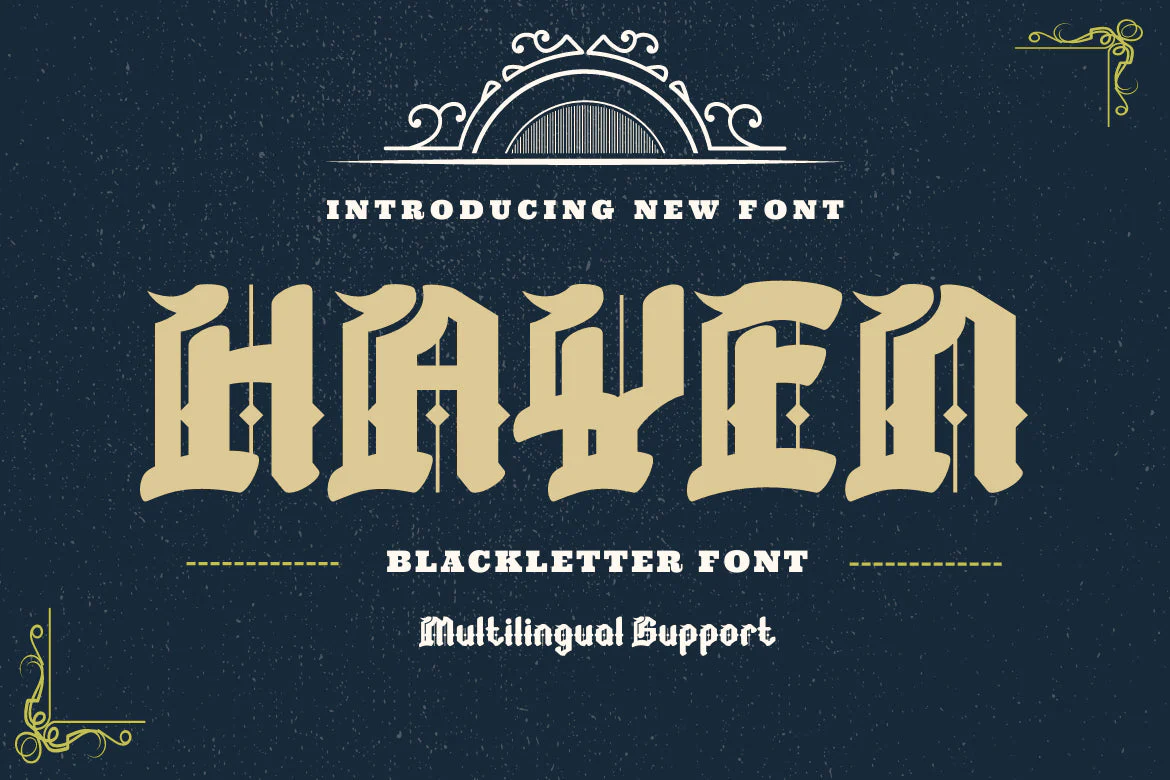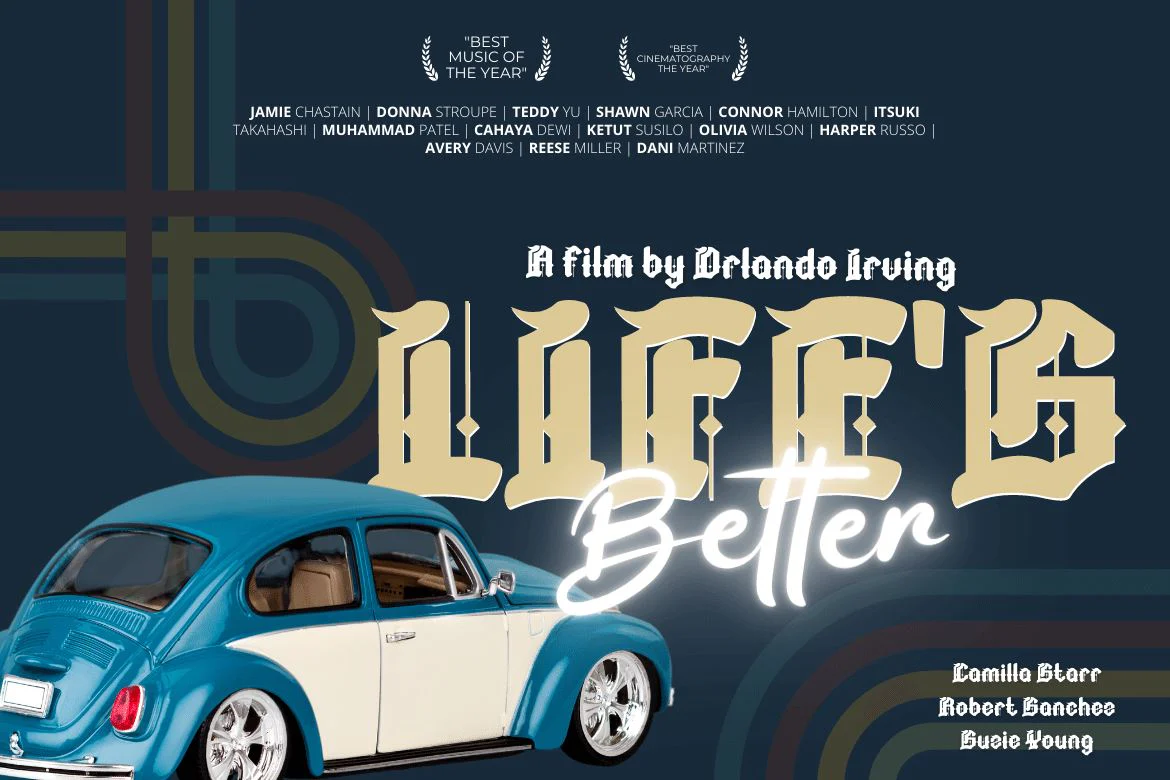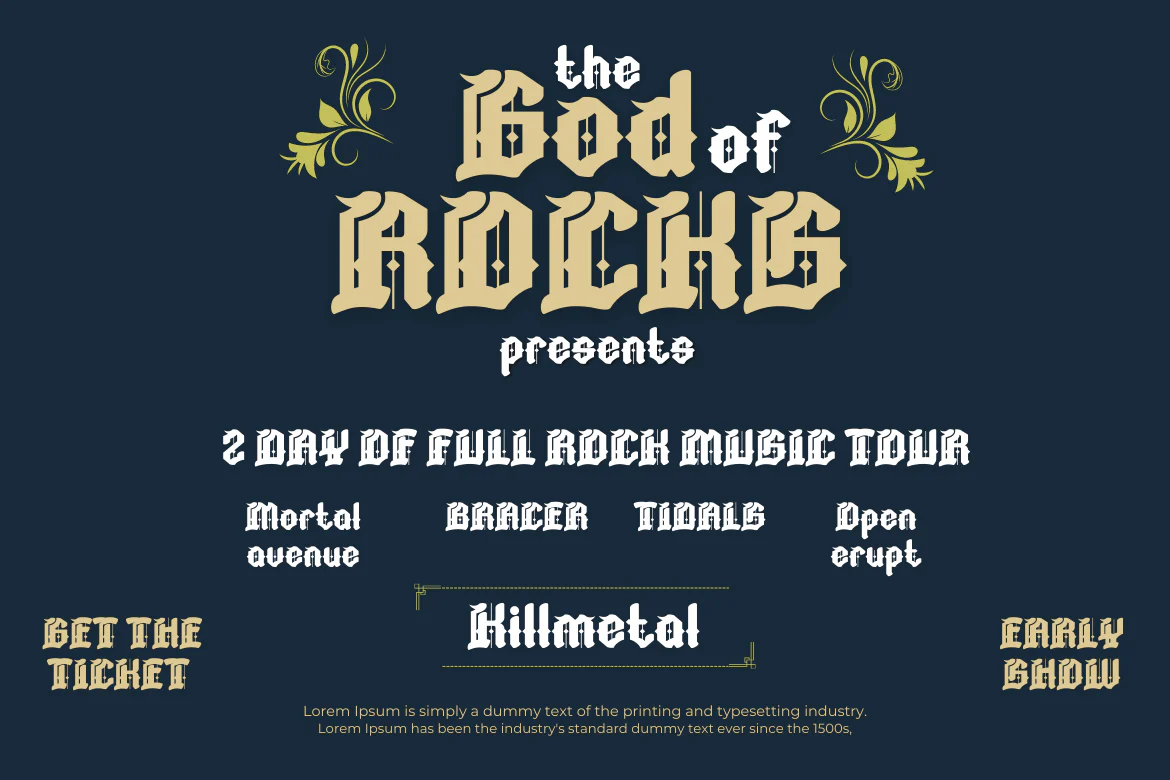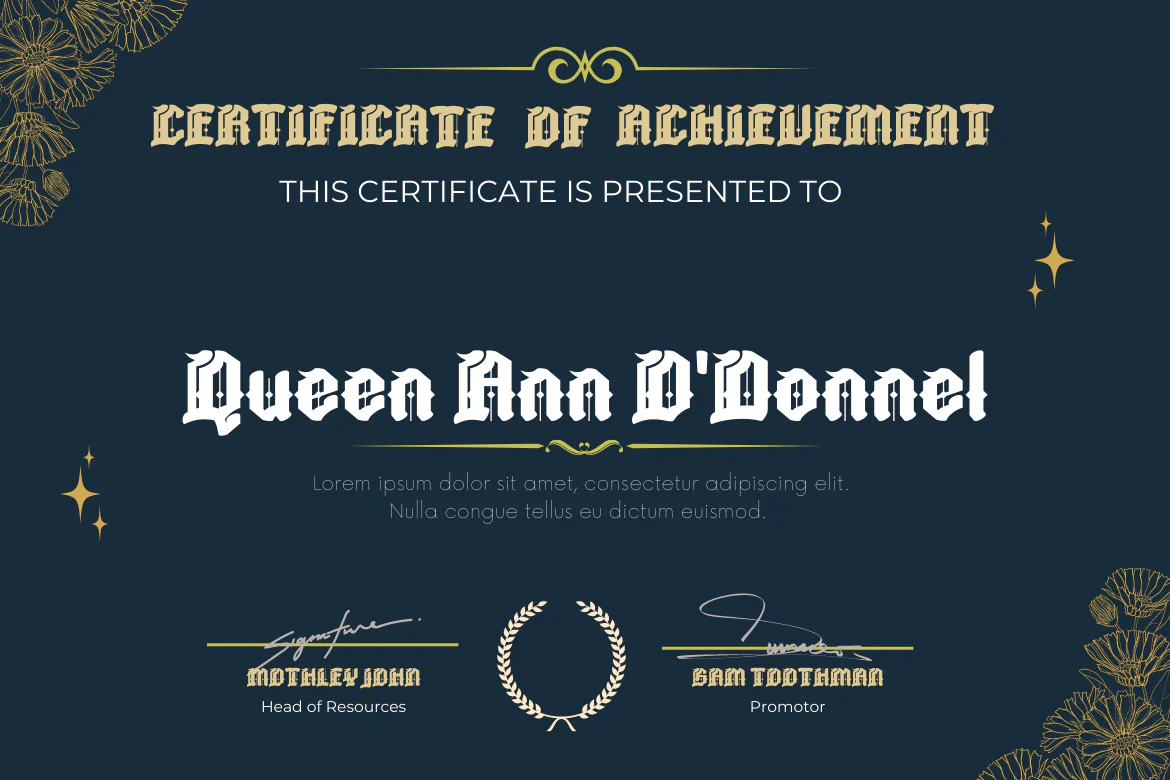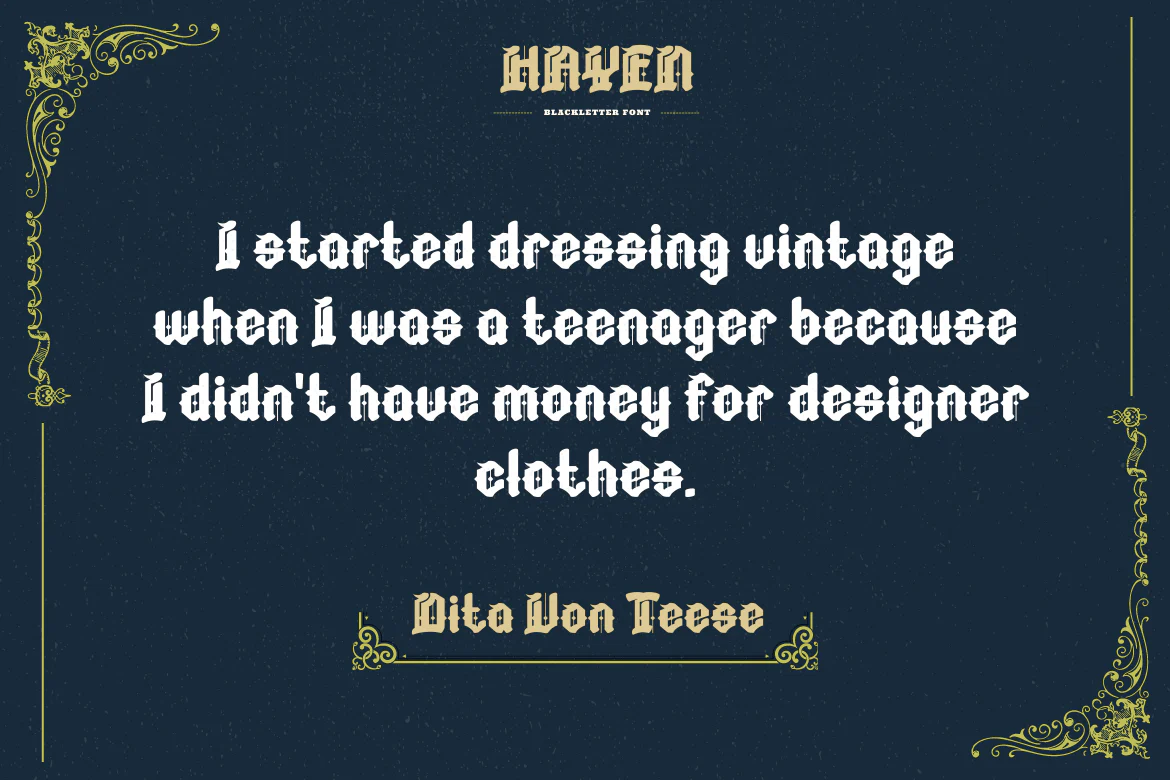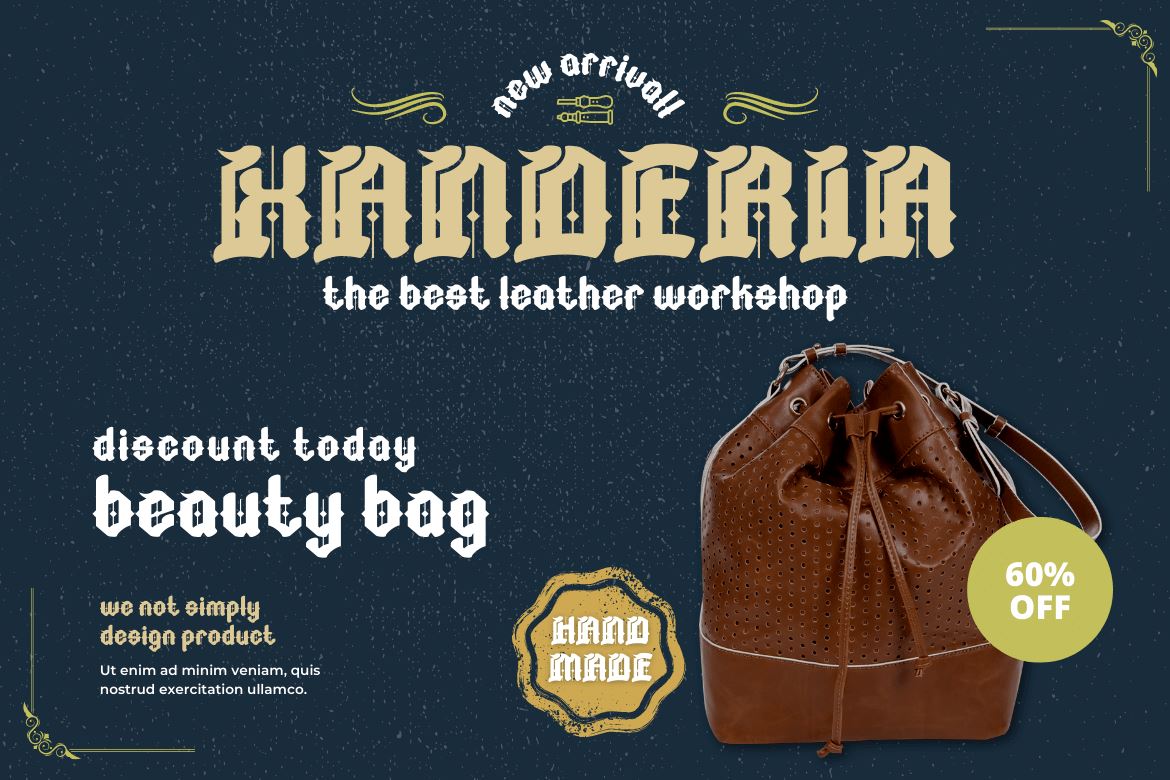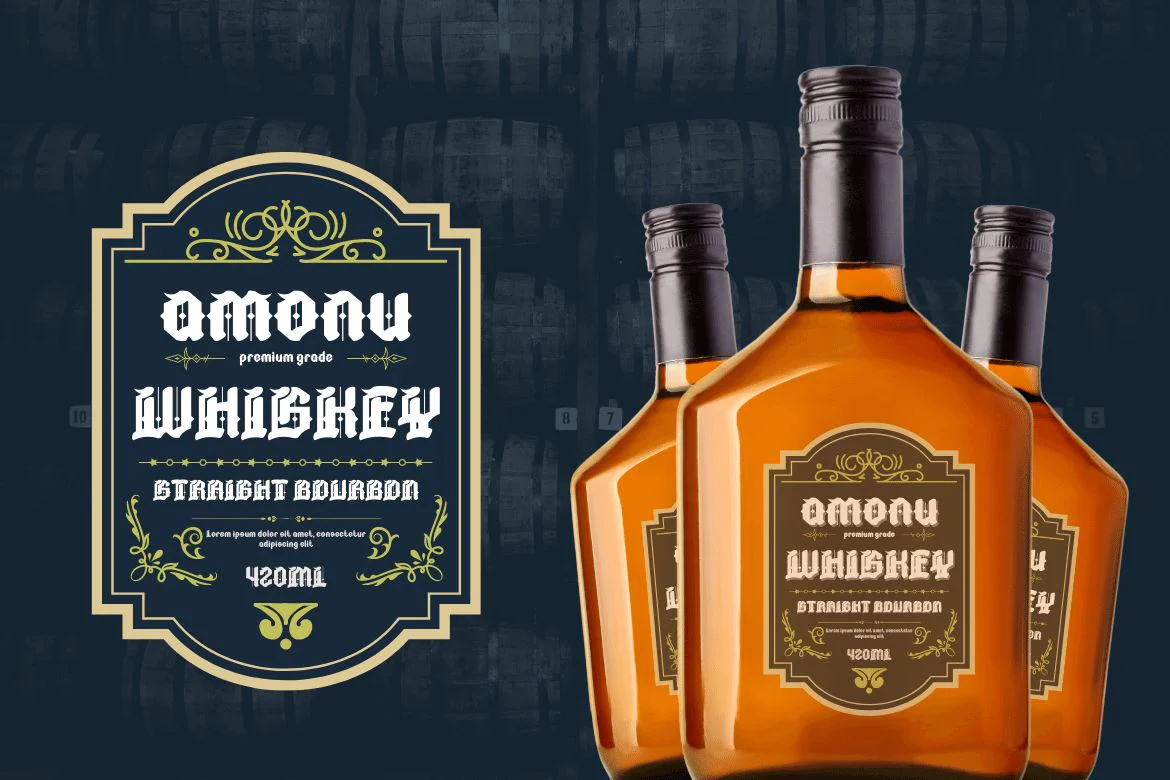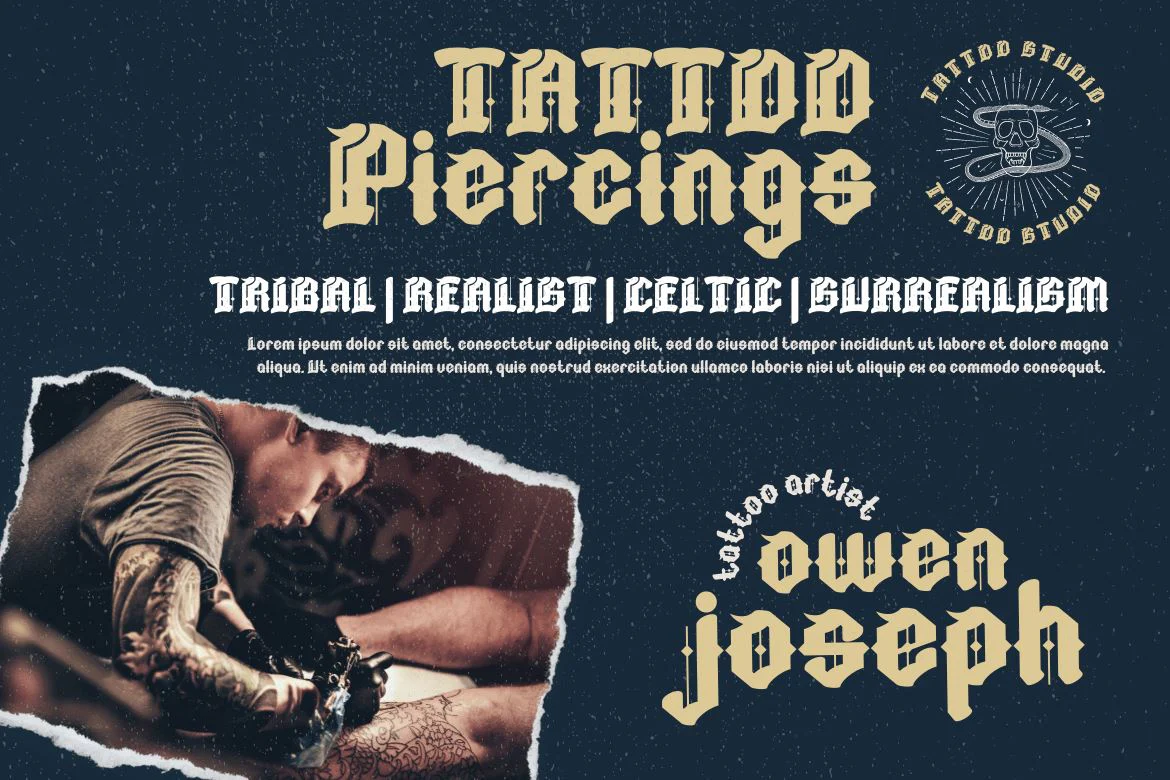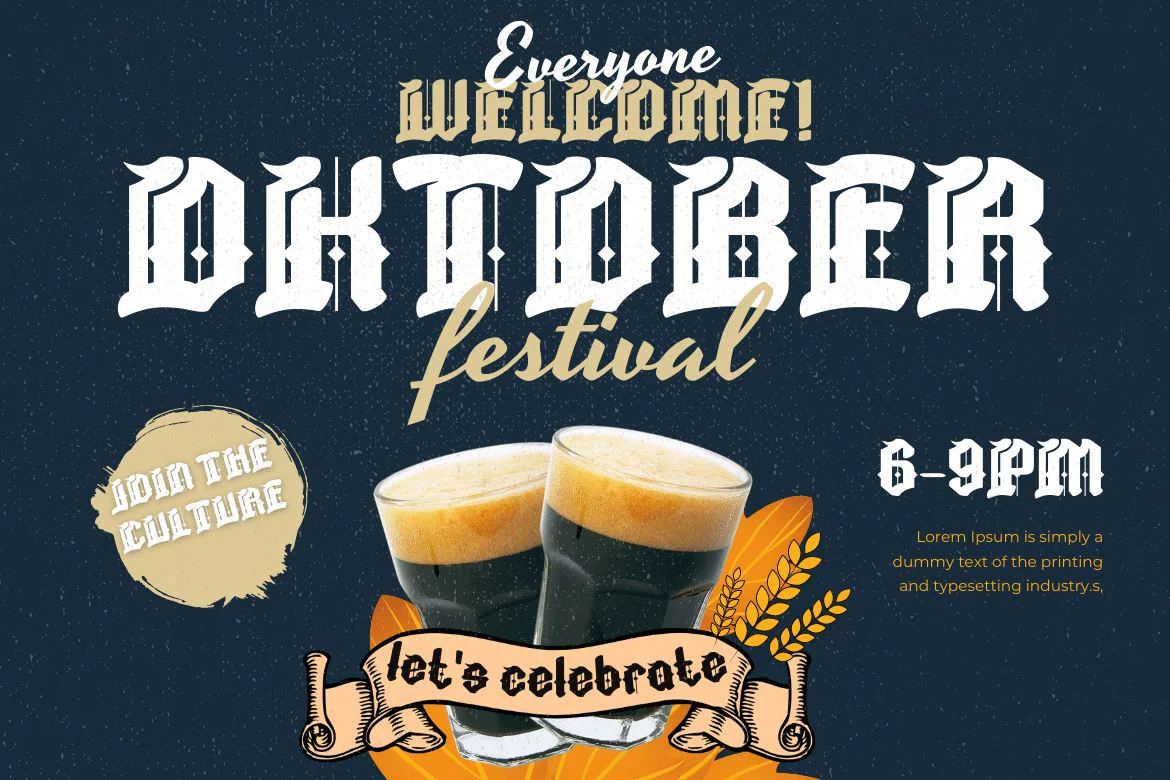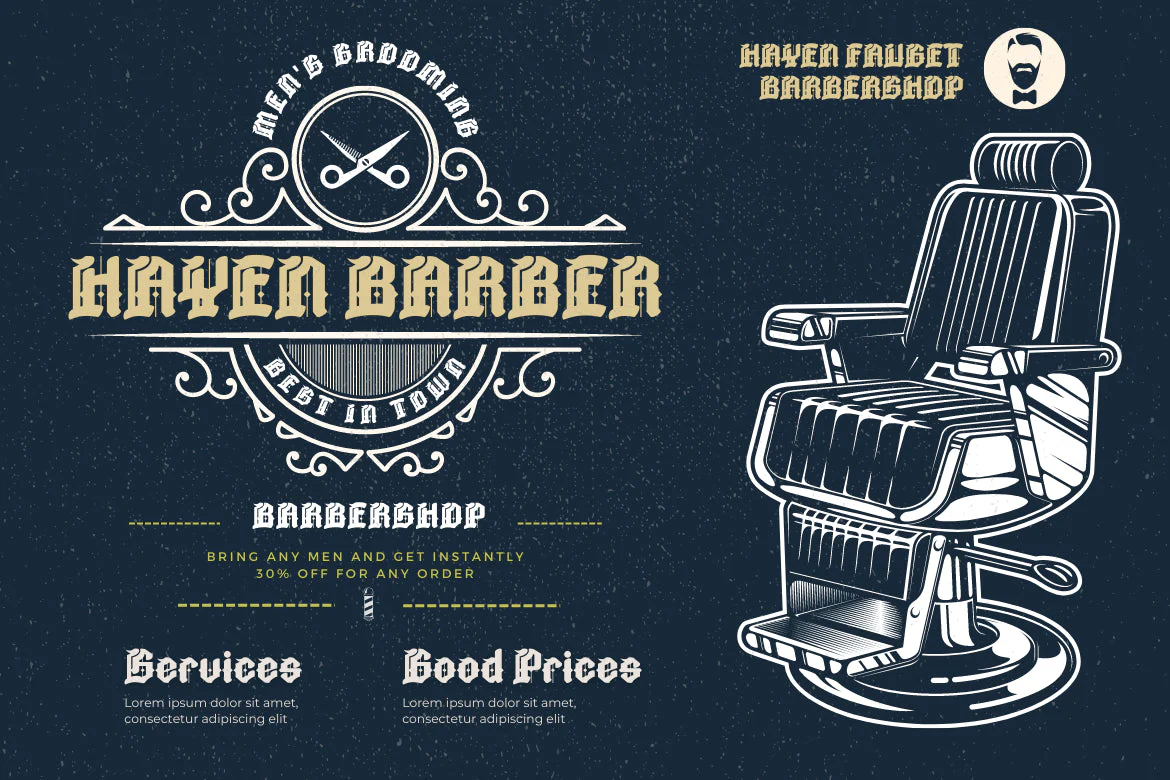
HAYEN Blackletter Font
Looking for a way to make your brand look dark, mysterious, and even gothic? look no further, HAYEN Blackletter! This font is perfect for creating labels, retro designs, stamping, badges, and packaging. Use it for your next retro Oktoberfest poster or for your next tattoo. It’s also a great choice for a barber shop or whiskey brand. Plus, it’s available in a variety of different styles and weights, so you can find the perfect one for your needs. So why wait? Add this Blackletter font to your next project today!